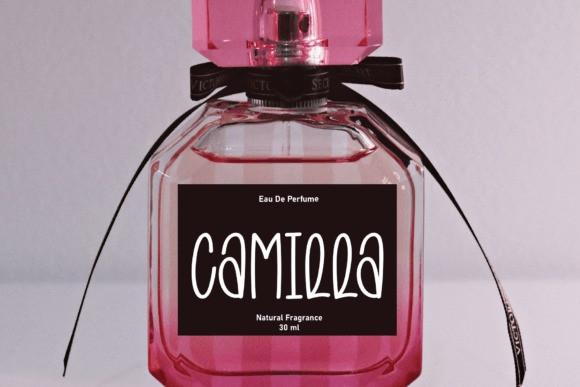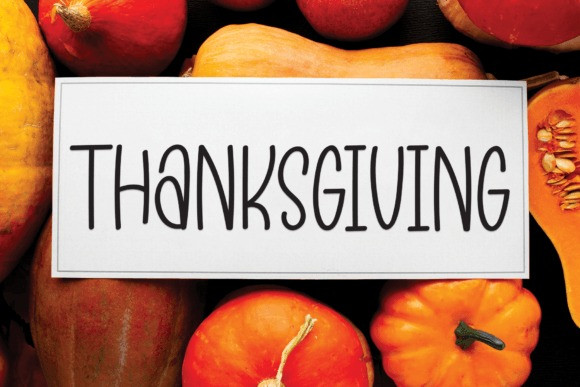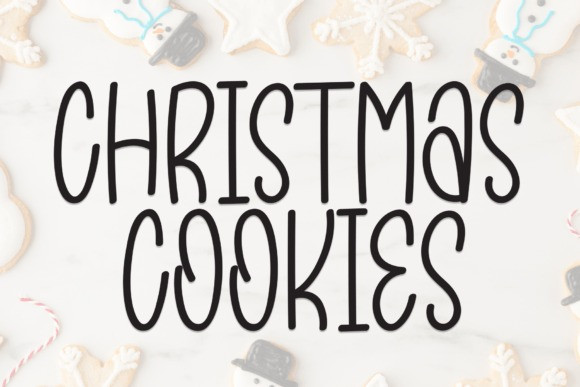
Christmas Cookies Font
Christmas Cookies Font is a sweet and friendly handwritten display font. Cute and fun, this font is ideal for writing wedding invitations, cards, or any other design that might need a fun touch!